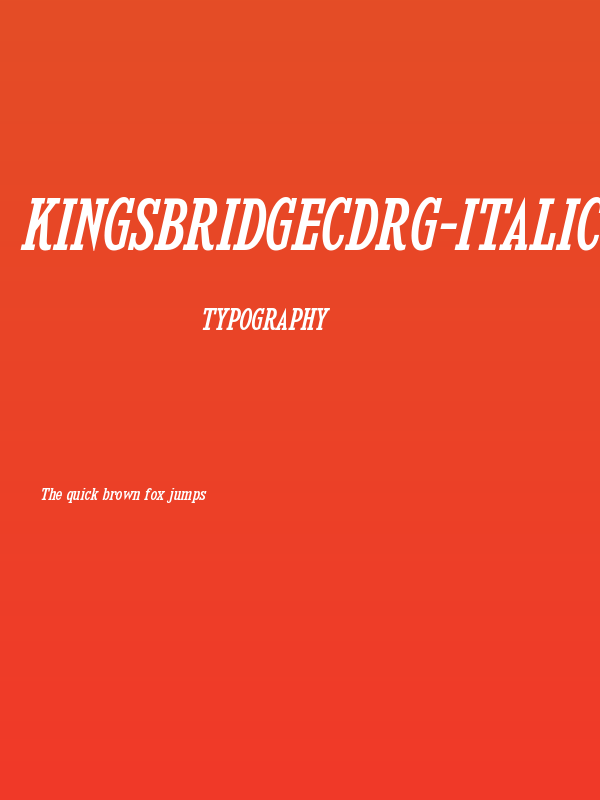
KingsbridgeCdRg-Italic Font
KingsbridgeCdRg-Italic Description
This font exhibits a classic serif style with a pronounced italic slant, giving it a dynamic and elegant appearance. The serifs are sharp and well-defined, contributing to a traditional yet sophisticated look. The uppercase letters are tall and commanding, while the lowercase letters maintain a consistent flow, enhancing readability. The numerals are proportionate and align well with the overall design, ensuring clarity in numerical data presentation. Special characters are distinct and integrate seamlessly with the alphabetic characters, making this font versatile for various applications. The overall design is balanced, with a moderate contrast in stroke thickness that adds to its legibility and aesthetic appeal.
| Proposed Projects | Ideal for editorial design, book covers, formal invitations, and branding materials that require a touch of sophistication. |